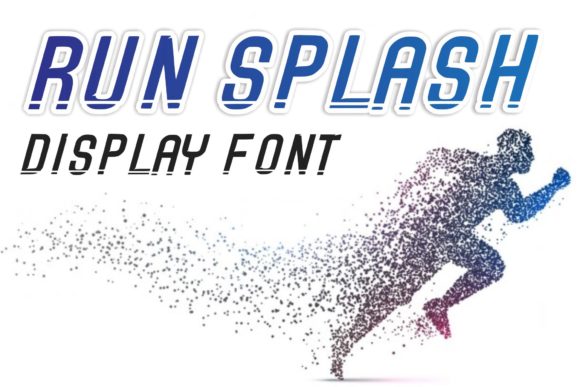
Welcome, font explorers and design enthusiasts! Step into the world of Run Splash, a display font that's more than just letters on a screen. It's a gateway to creativity, a catalyst for remarkable designs that leave a lasting impression. Our unique creation, birthed from the imagination of Riki.studio, is poised to transform your creative visions into tangible realities.
Run Splash is your passport to a realm of endless possibilities, where your imagination takes center stage. It's perfect for those who dare to break free from the mundane and embrace the extraordinary. Picture your designs adorned with this font, a visual symphony that captures attention and ignites emotions.
As a display font, Run Splash exudes power and speed, mirroring the dynamic spirit of our fast-paced world. It's a font that demands attention, whether you're crafting captivating logos that leave an indelible mark or creating T-shirts that speak volumes. Its energy and fluidity make it ideal for backgrounds that transport viewers to another dimension.
But Run Splash isn't just a collection of characters; it's an invitation to unleash your creativity. Let this font be the spark that ignites your passion, fueling your design endeavors with a renewed sense of purpose and inspiration. As you incorporate Run Splash into your creations, you'll discover a whole new level of expression.
So, dear designers, embark on this adventure with us. Embrace the allure of Run Splash, let it be your muse, your guiding light in the vast world of design. Its versatility and captivating essence will transform your ideas into masterpieces, leaving your audience awestruck.
Don't settle for ordinary fonts; choose Run Splash, a font that embodies the essence of power and speed. Let it be the driving force behind your imagination, propelling your designs to new heights. Embrace the extraordinary, embrace Run Splash.